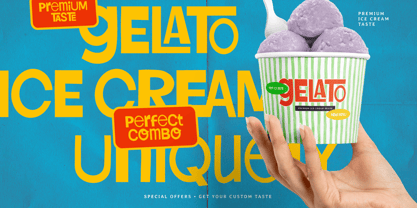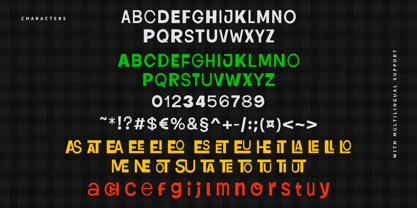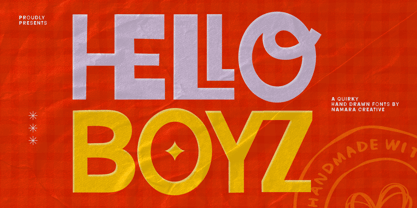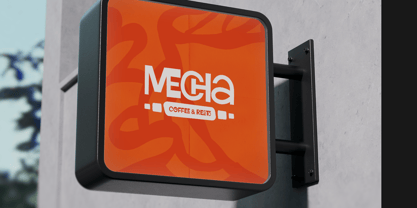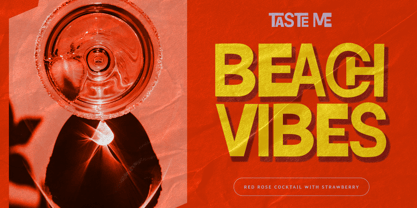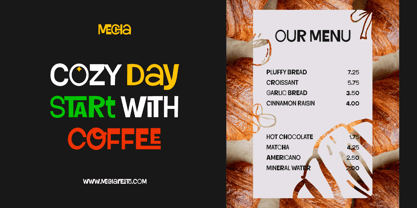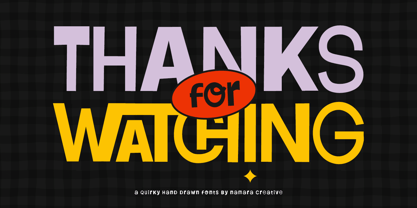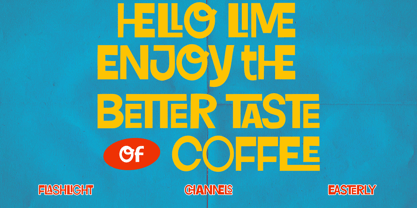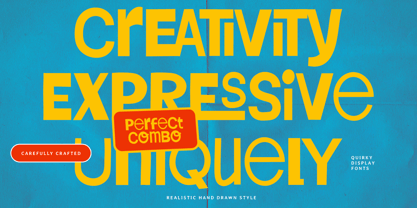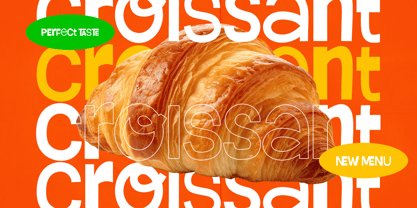
Hello Boyz
by Namara Creative Studio
The Hello Boyz Font Family was designed by Toni Setiawan and published by Namara Creative Studio. Hello Boyz contains 2 styles and family package options.
Introducing Hello Boyz, a meticulously crafted display font that blends a fun, hand-drawn aesthetic with a bold and confident presence. This quirky typeface is designed to stand out, offering a unique combination of rounded letterforms and a subtle, realistic texture that gives your projects an authentic, custom-made feel. Whether you’re aiming for a modern retro vibe or a playful, eye-catching look, Hello Boyz is your go-to solution for making a statement. Its thick, friendly strokes are perfect for headlines and logos that demand attention without taking themselves too seriously. Key Features : Distinctive Hand-Drawn Style : Each letter possesses a charming, imperfect quality with a realistic texture, adding warmth and character to digital designs. Bold & Rounded for Impact : The font’s heavy weight and soft, rounded edges ensure excellent readability and a friendly, approachable feel, making it ideal for large-scale display. Rich Set of Ligatures & Alternates : Unlock endless creative possibilities with a wide array of unique ligatures and stylistic alternates. Create custom-looking typography and dynamic lockups effortlessly. Multilingual Support : Expand your reach with extensive language support, including a full set of accented characters for international projects. Versatile Application : Perfectly suited for a diverse range of design projects, from branding and packaging to merchandise and social media graphics. Perfect For : Branding & Logos Product Packaging Merchandise Design Poster & Advertising Menus & Signage Thank You
Designers: Toni Setiawan
Publisher: Namara Creative Studio
Foundry: Namara Creative Studio